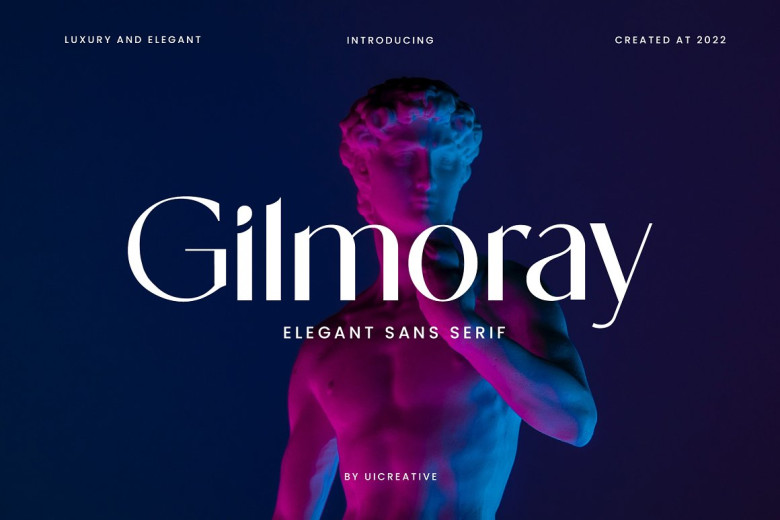
Gilmoray Font
Gilmoray is an elegant sans serif font that feels beautiful classy, elegant, and modern. This font is ideally suited for a wide variety of projects such as signature, stationery, logo, wedding typographic quotes, magazine or book covers… You name it!
Gilmoray Sans Serif Font